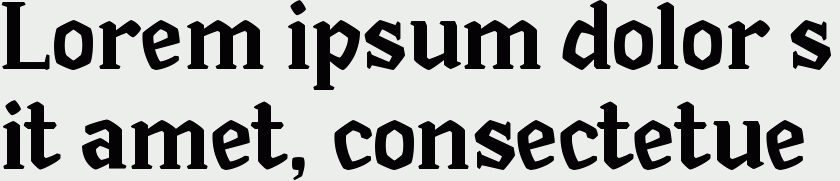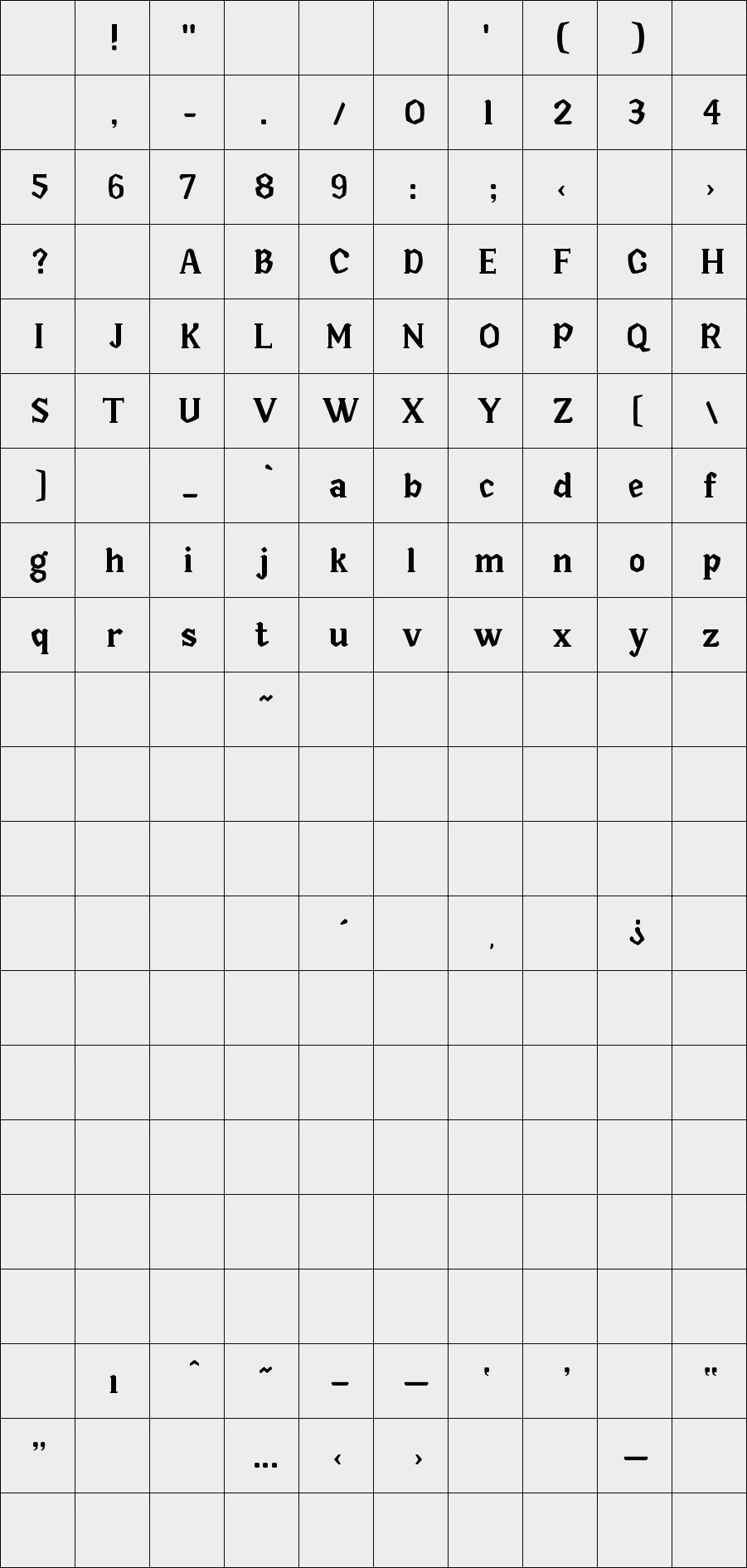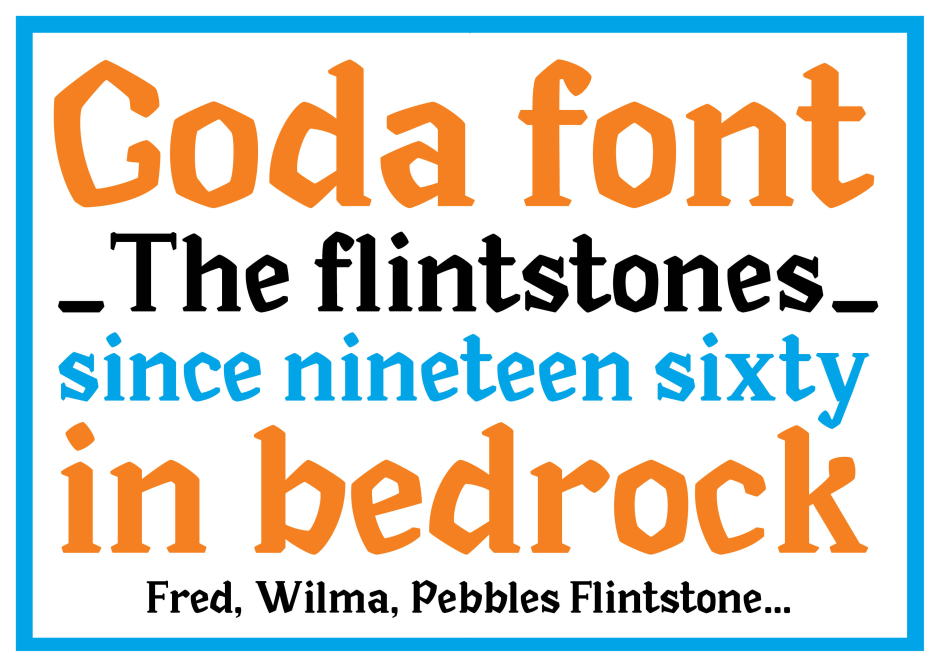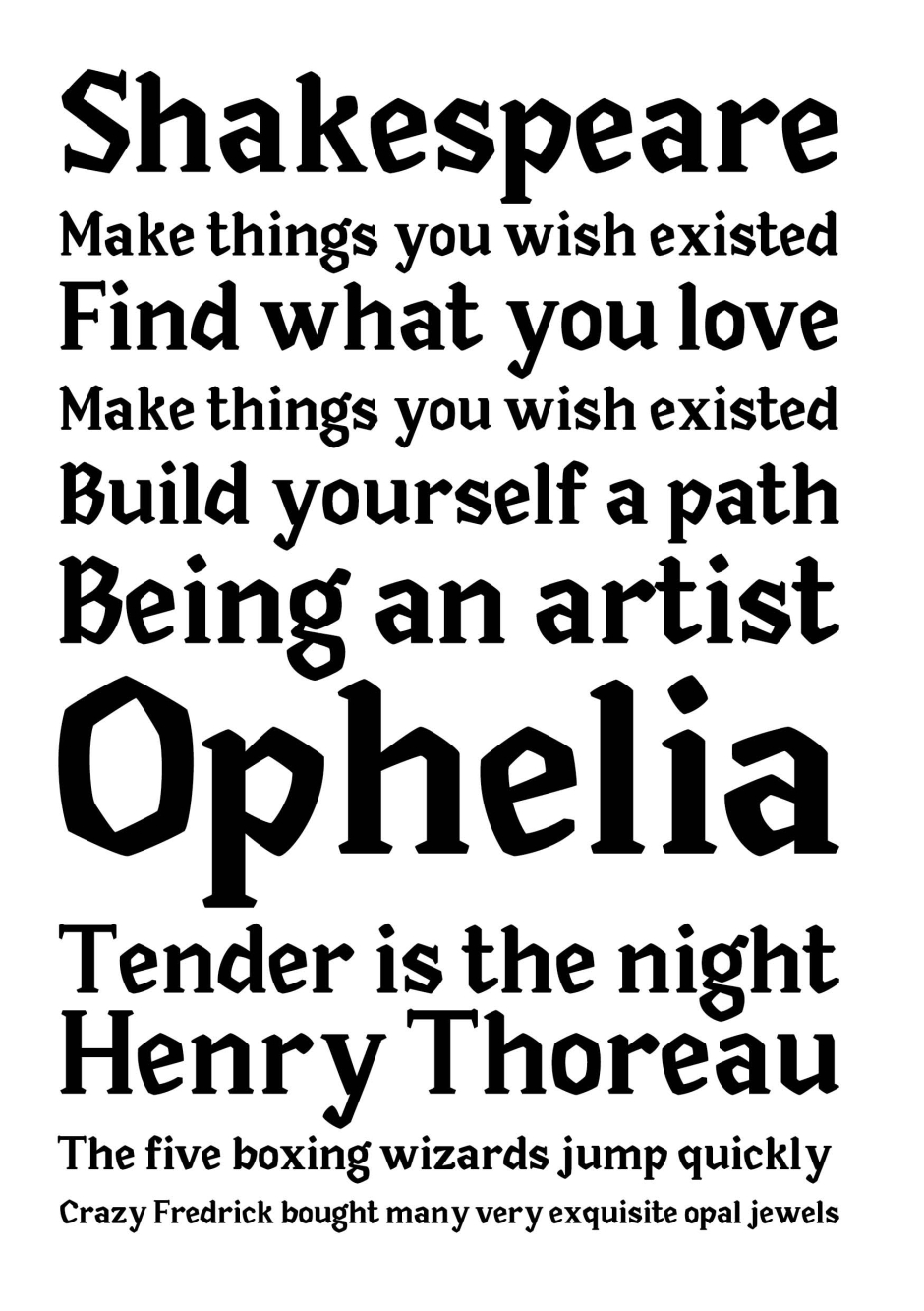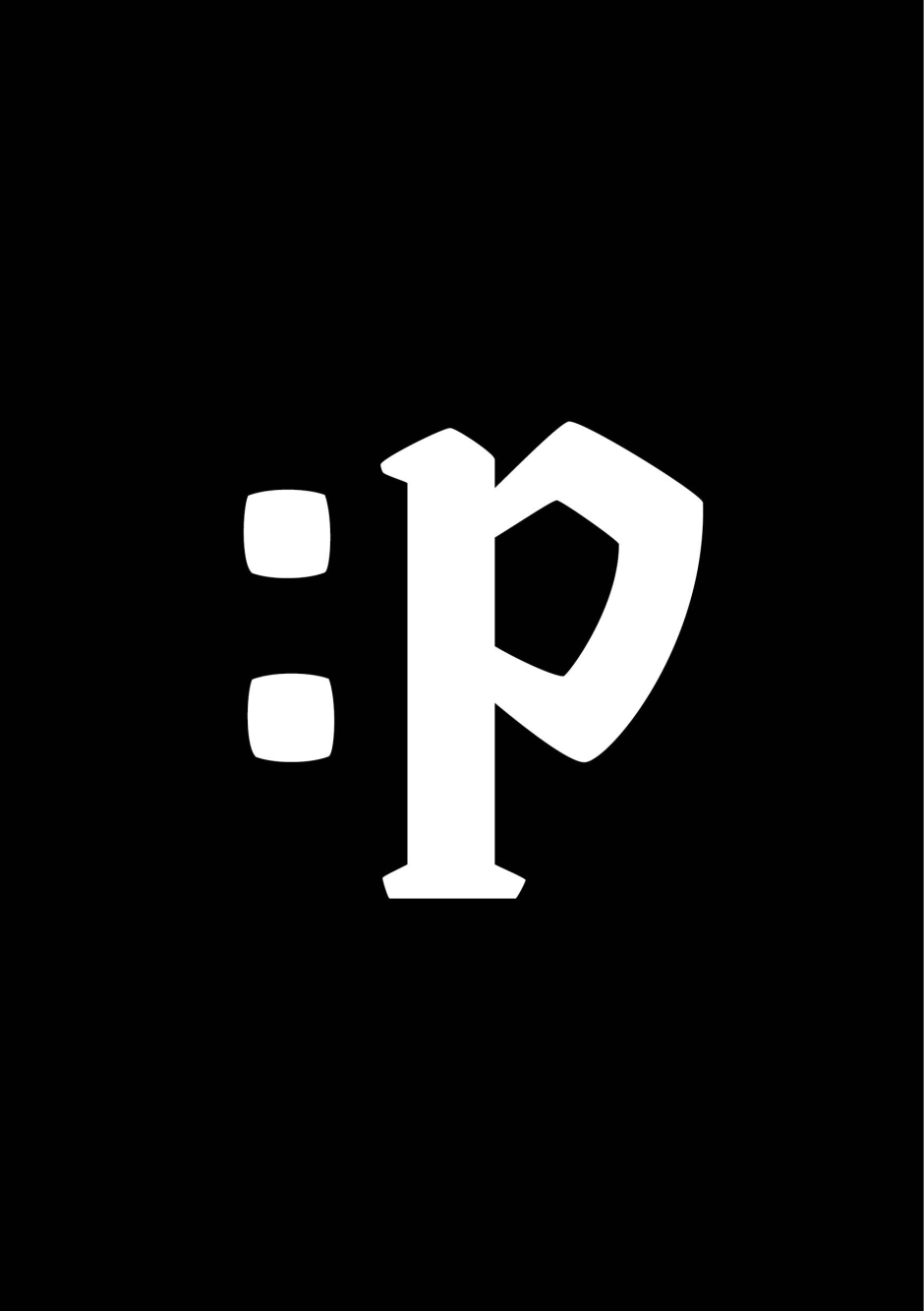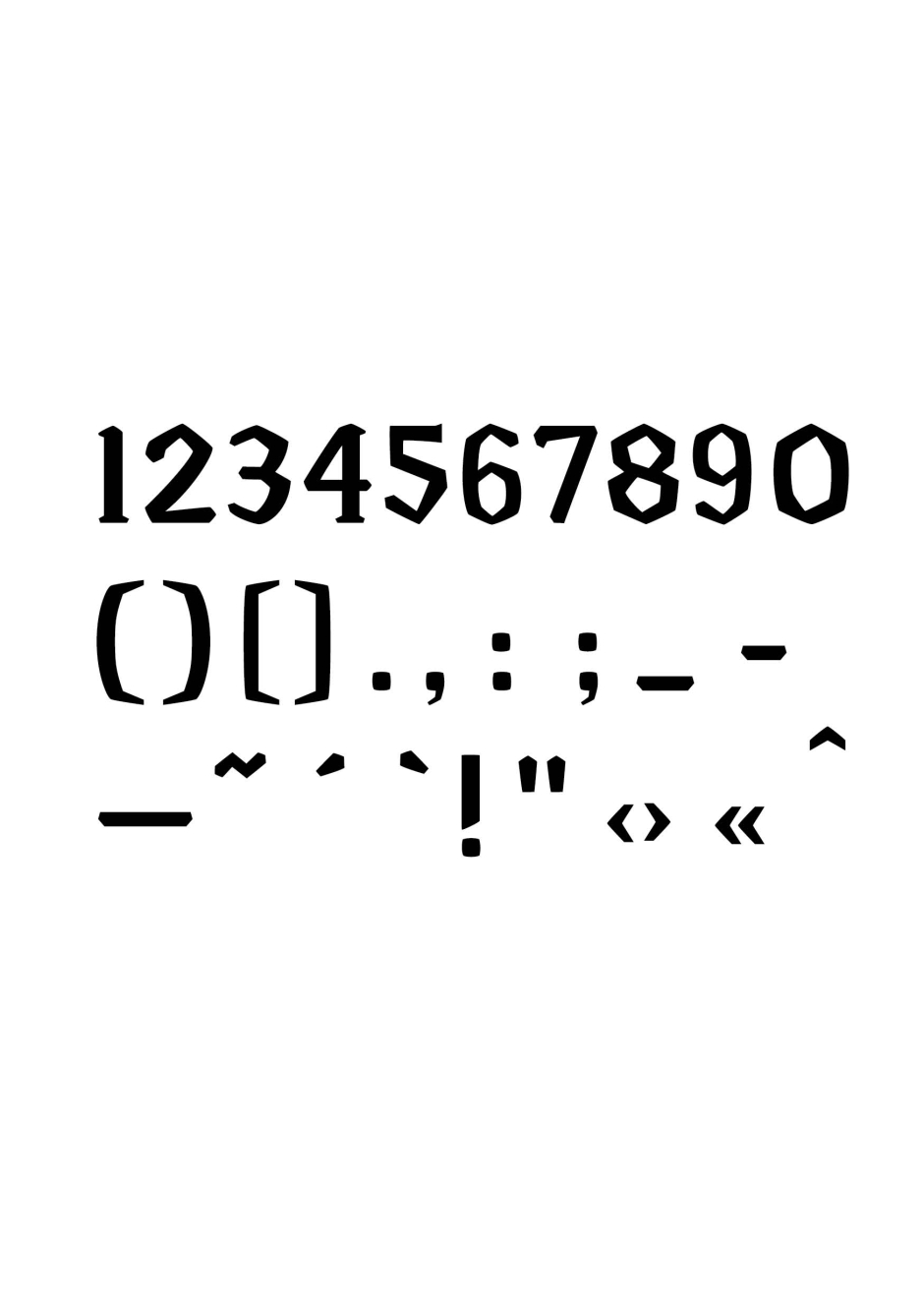
Goda Font
Goda is a funny, chunky chunky font ideal for posters, text, ALL ! Have a very beautiful and care design with geometric details.
Designer: leonor almeida cunha